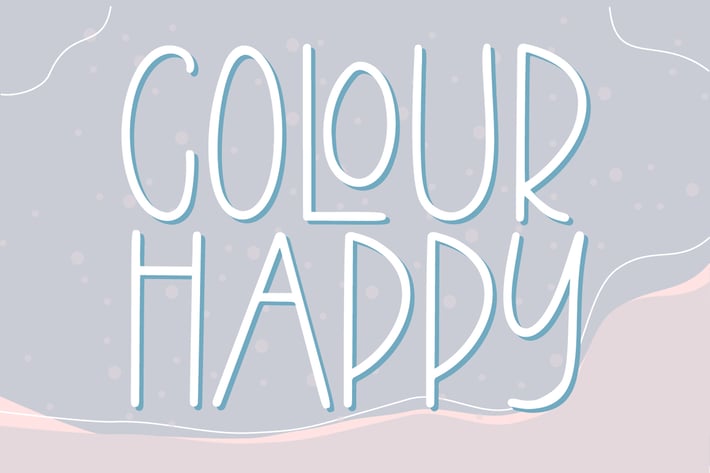
Colour Happy - Fun Sans Serif Font
Colour Happy is fun sans serif font. This will add a very cute, fun, playful touch to your design. This font is PUA encoded which means you can access all the glyphs and sweeps easily!
Features:\
+All Uppercase
+Numbers and punctuation
+Multilingual
+PUA Encoding
Full Character Set\